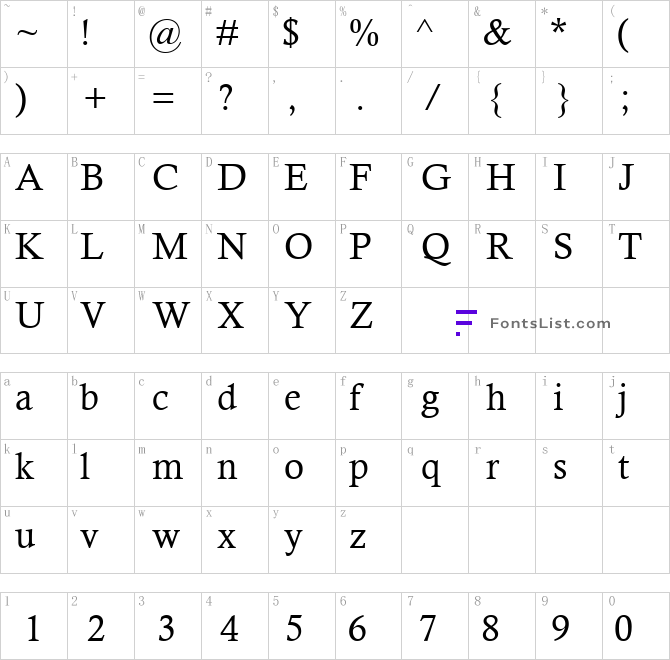
- Font Name:Calisto MT
Calisto-MT-copy-1-.ttf is a very beautiful artistic font, Calisto-MT-copy-1-.ttf is widely used in the design and printing of various books and pictures,Calisto-MT-copy-1-.ttf has a strong visual impact,Calisto-MT-copy-1-.ttf is a commonly used font in newspapers, magazines and books, and is used in posters, e-commerce Poster design, store design, logo design, font design and other fields.Calisto-MT-copy-1-.